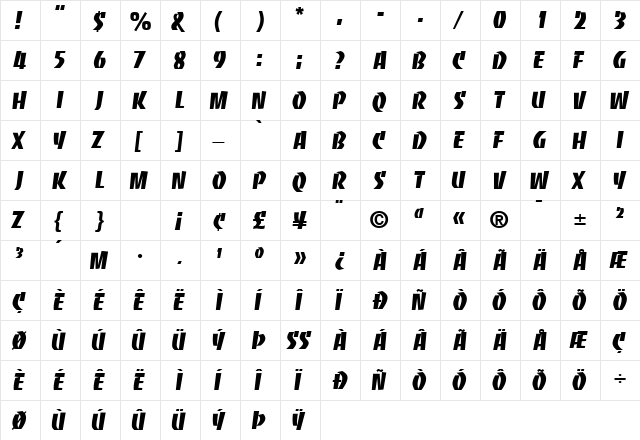
KickStartCapsSSi Regular Font Preview
KickStartCapsSSi Regular
Design Context for KickStartCapsSSi Typeface
KickStartCapsSSi offers clean, dependable letterforms without strong stylistic allegiance, making it a practical choice for designers who need flexibility.
Pro Tip: Use KickStartCapsSSi in both headline and body roles to test its range before committing to a single application.